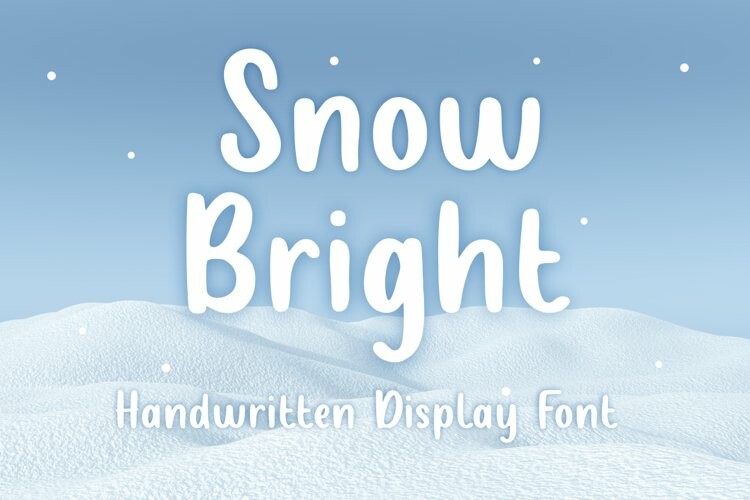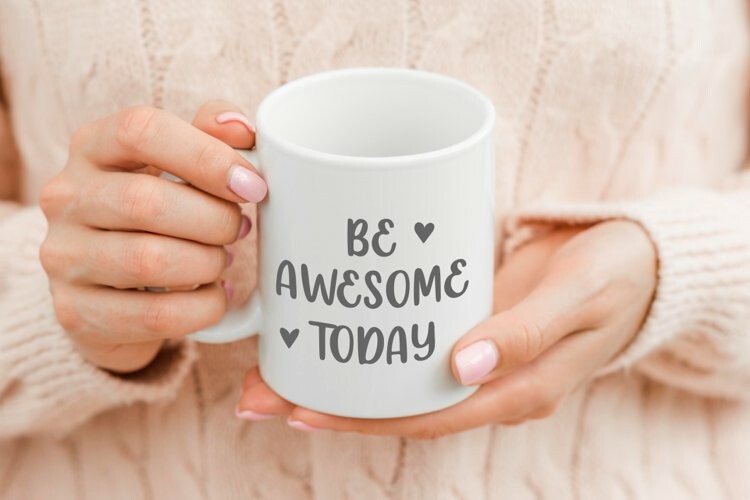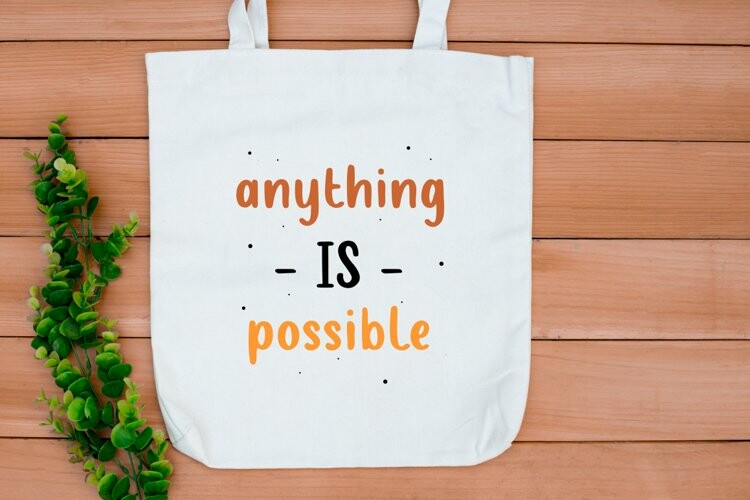
Snow Bright font
Snow Bright fontSnow Bright is a fun Handwritten Font, this font Is perfect for product packaging, product designs, label, photography, watermark, special events, or anything.
Snow Bright comes with uppercase and lowercase letters, multilingual symbols, numerals, punctuation.